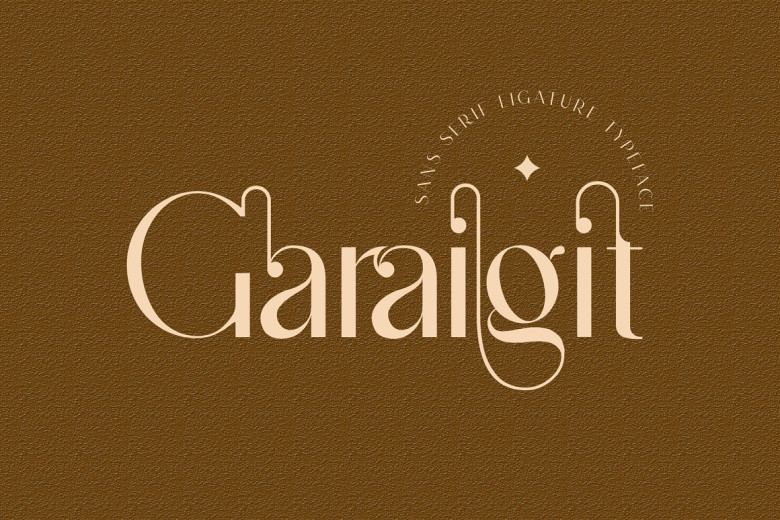
Garaigit Font
Garaigit is a modern and unique sans serif font. It is PUA encoded so you can access all glyphs and swashes with ease! If your desire is to create hand-lettered design hope it is the way! Use it on your most favorite creation and enjoy the impeccable result.
Garaigit Sans Serif Font